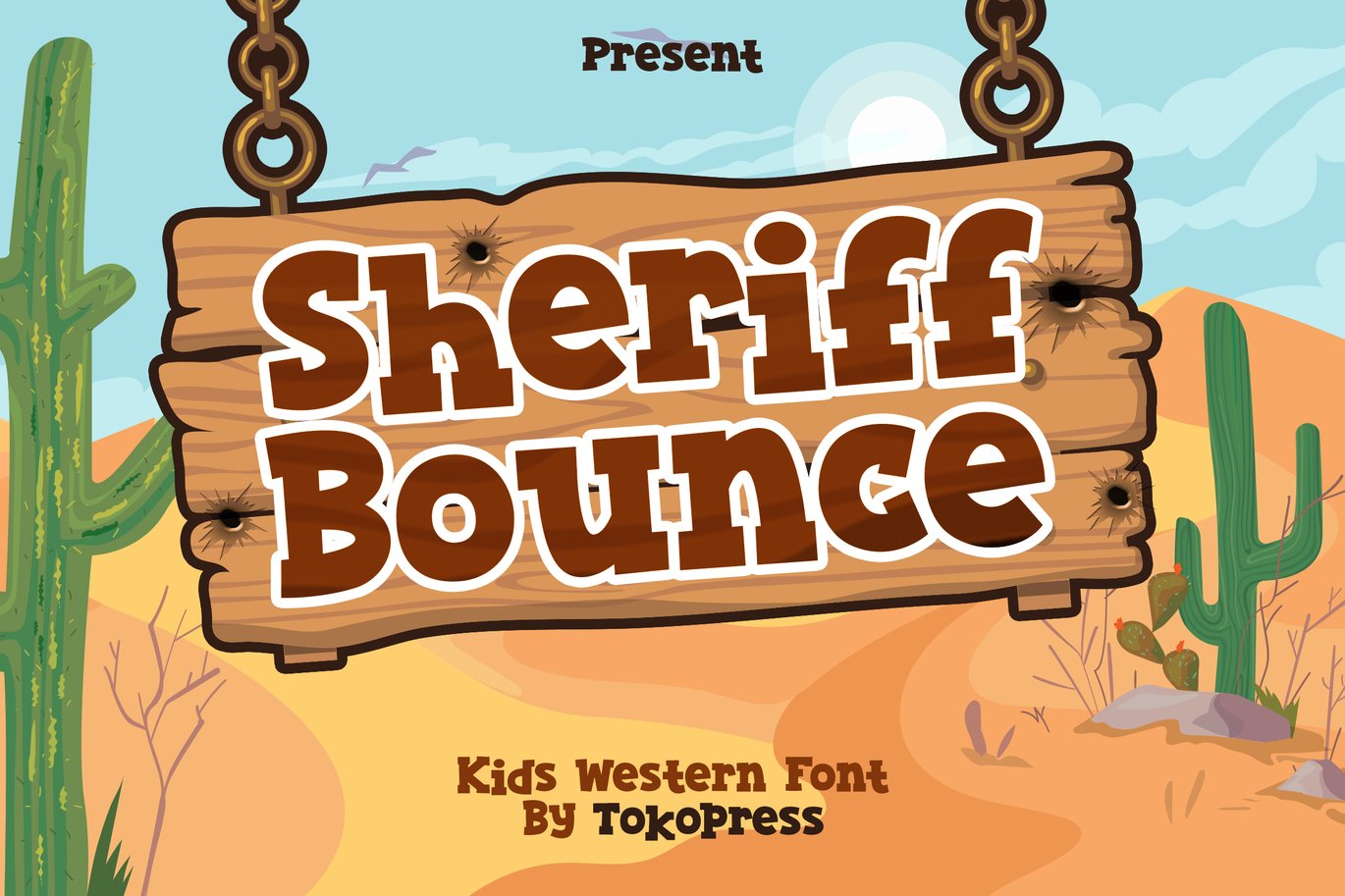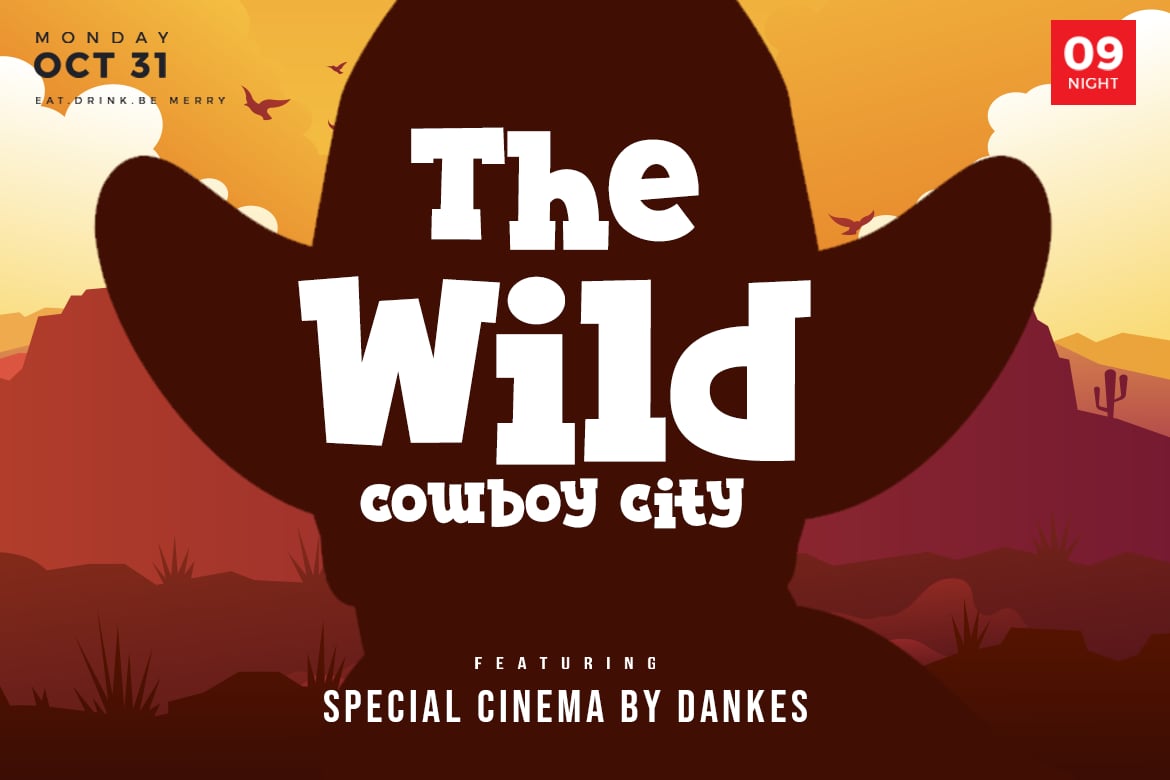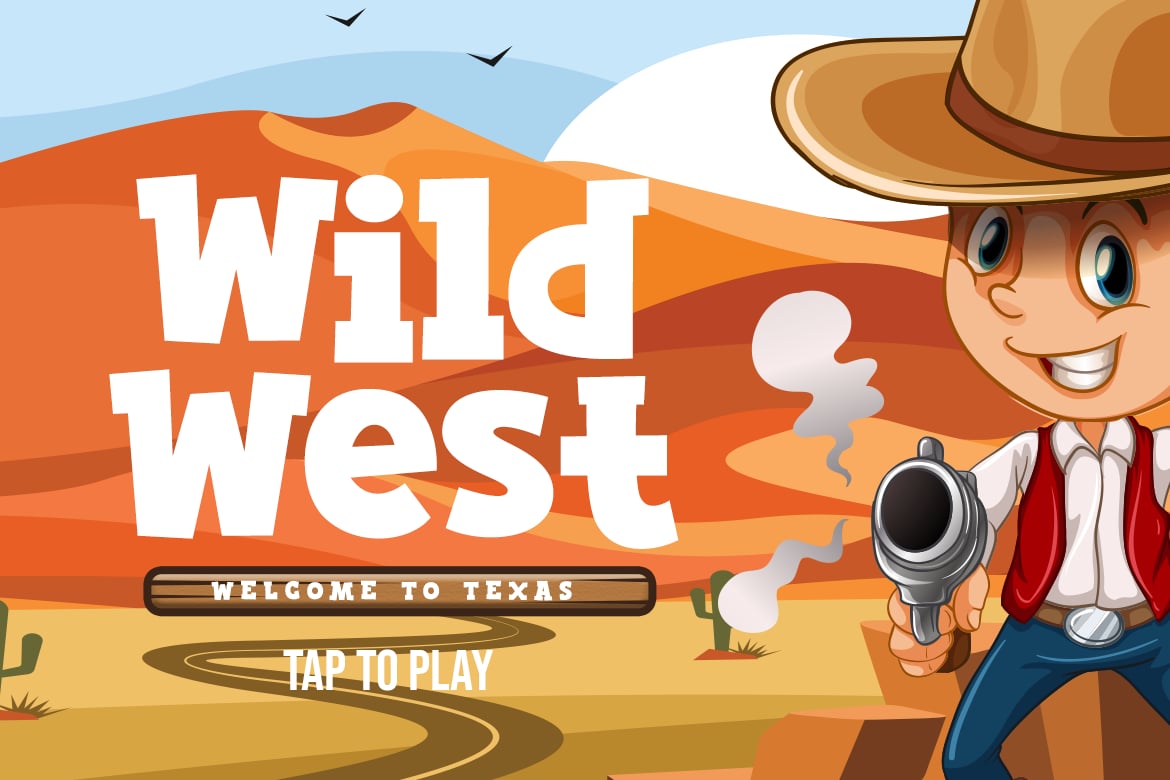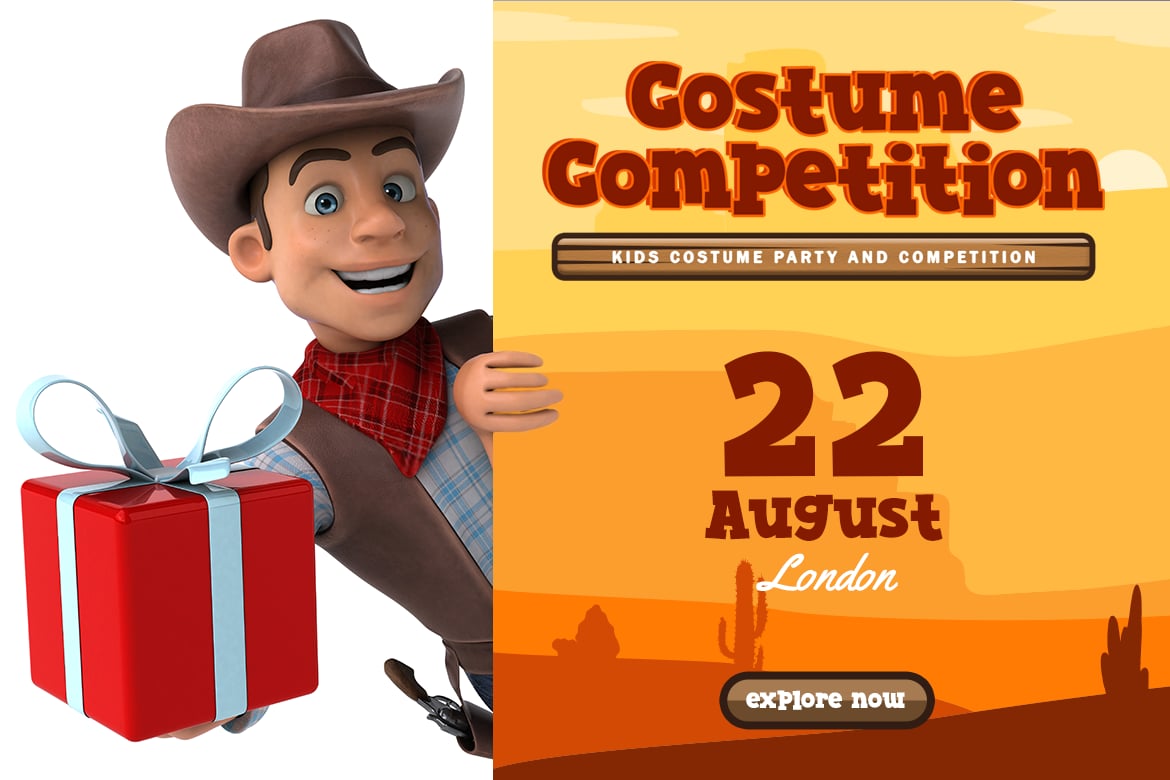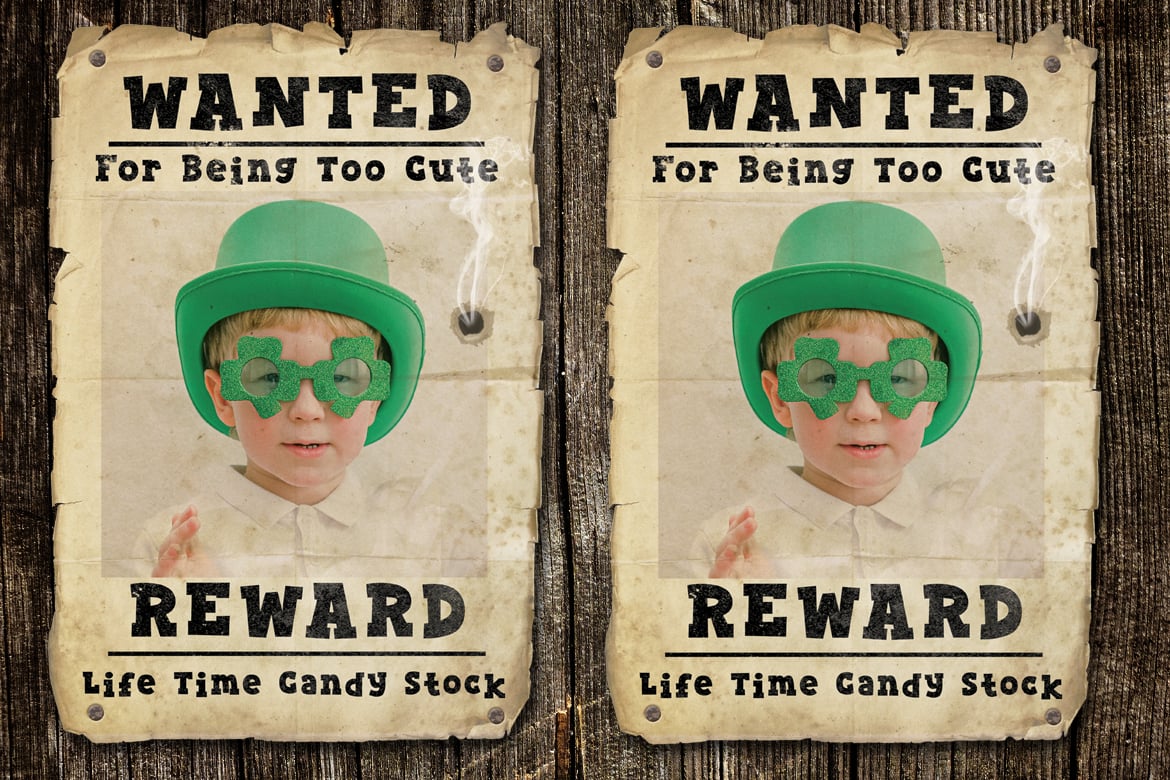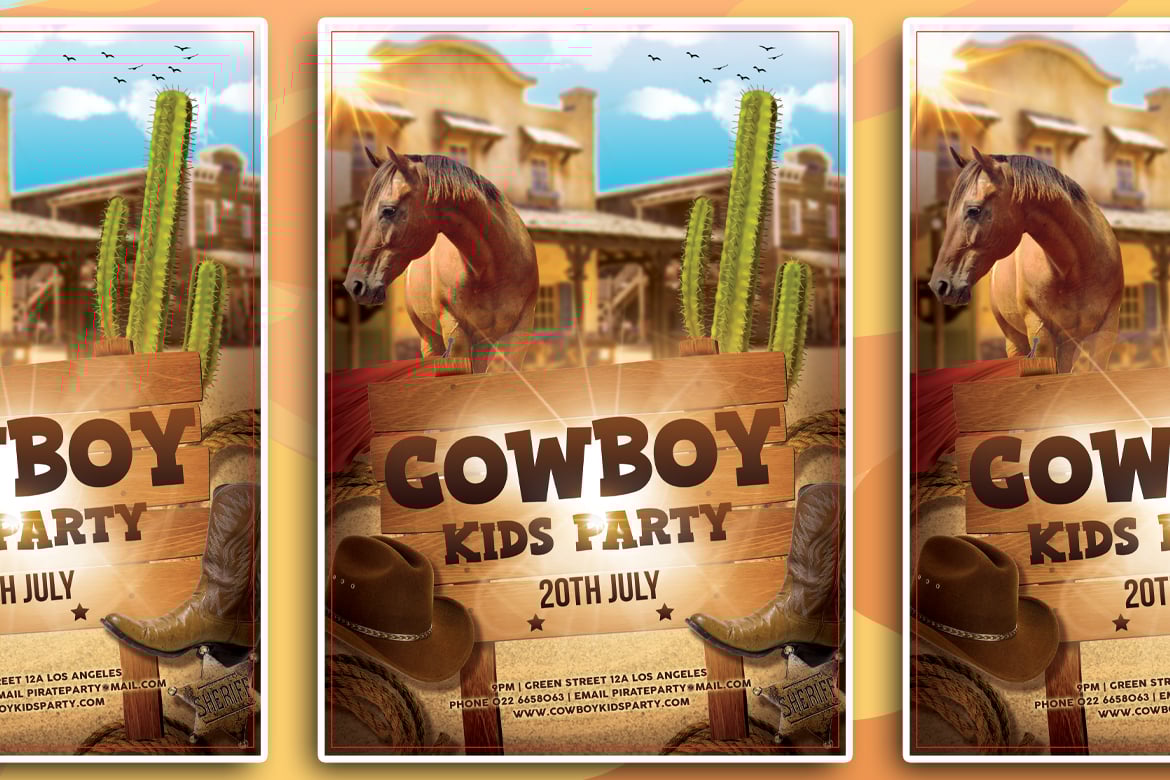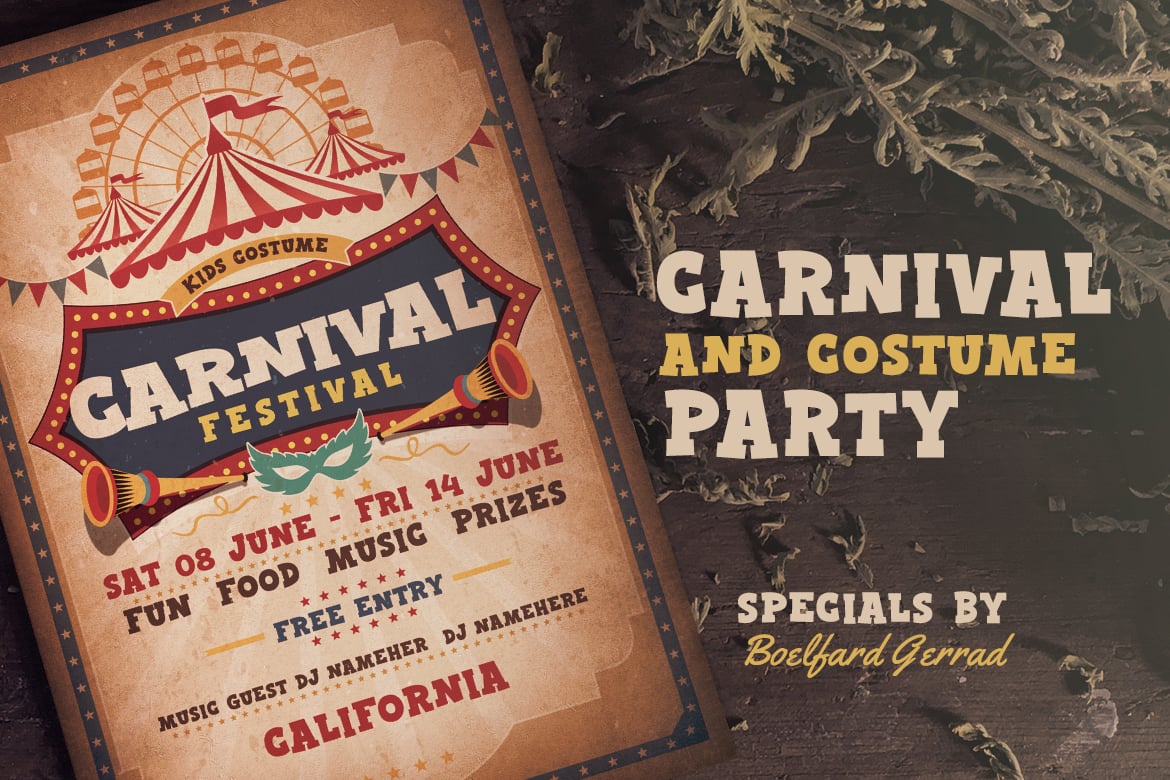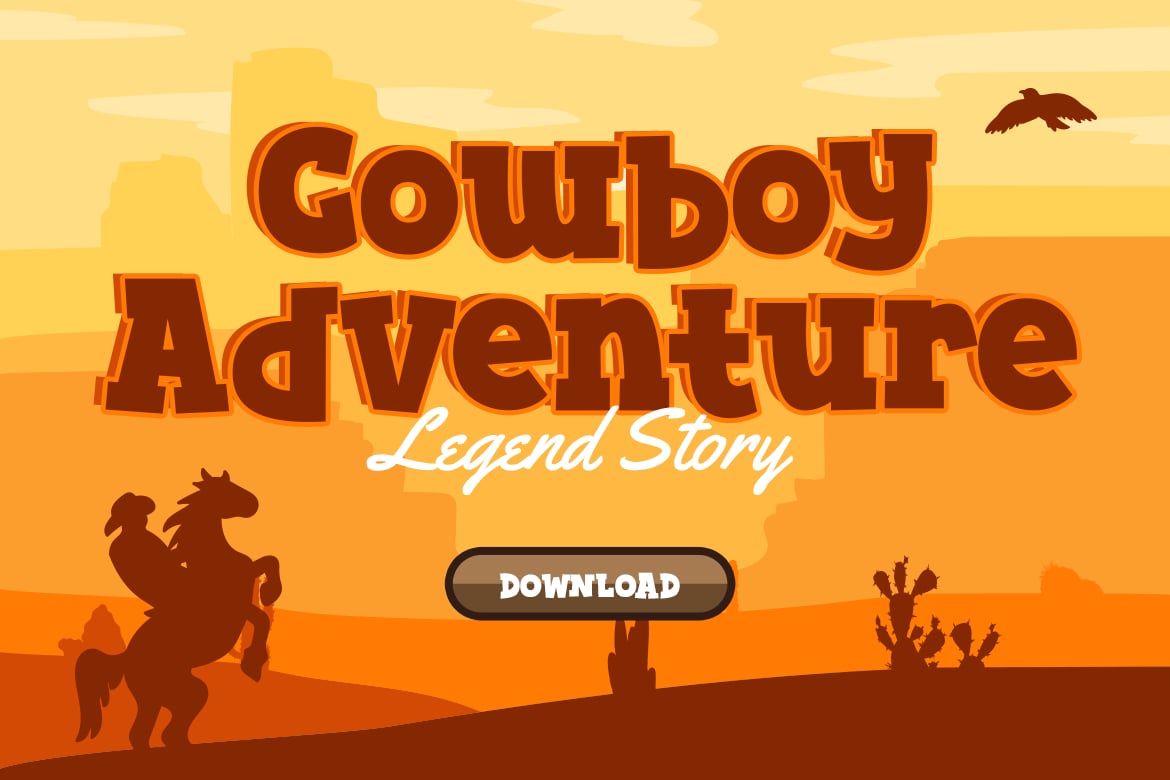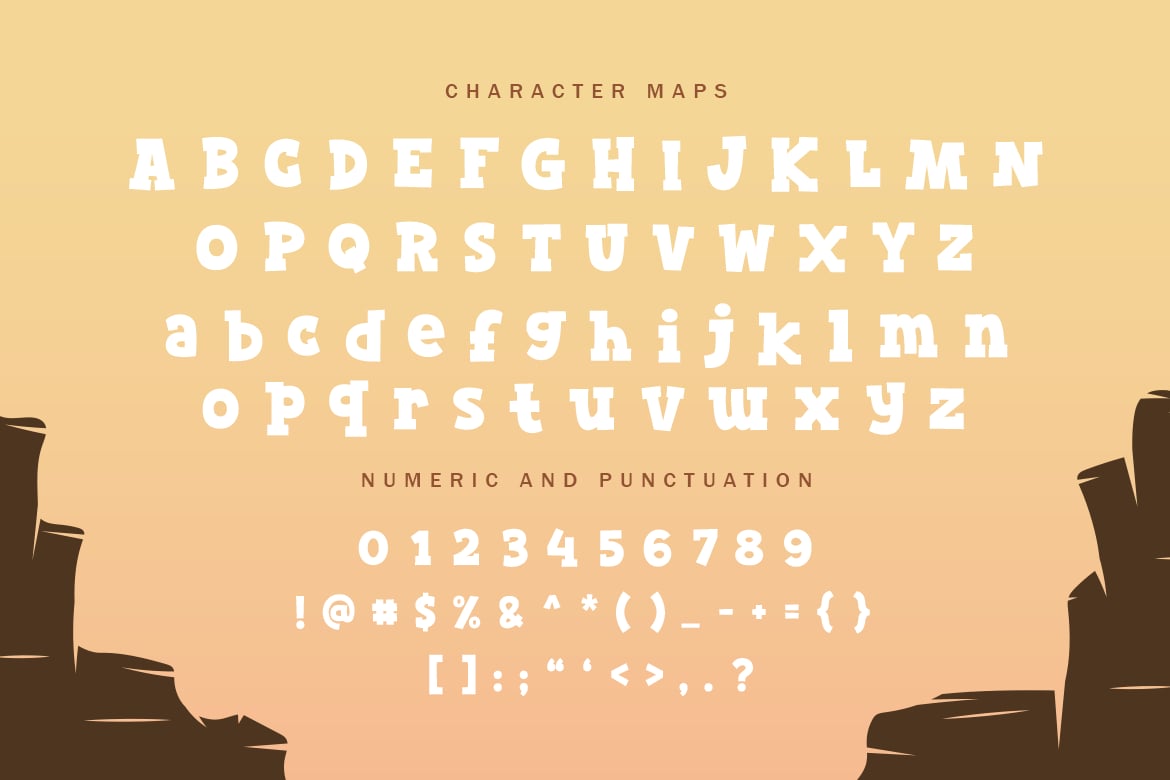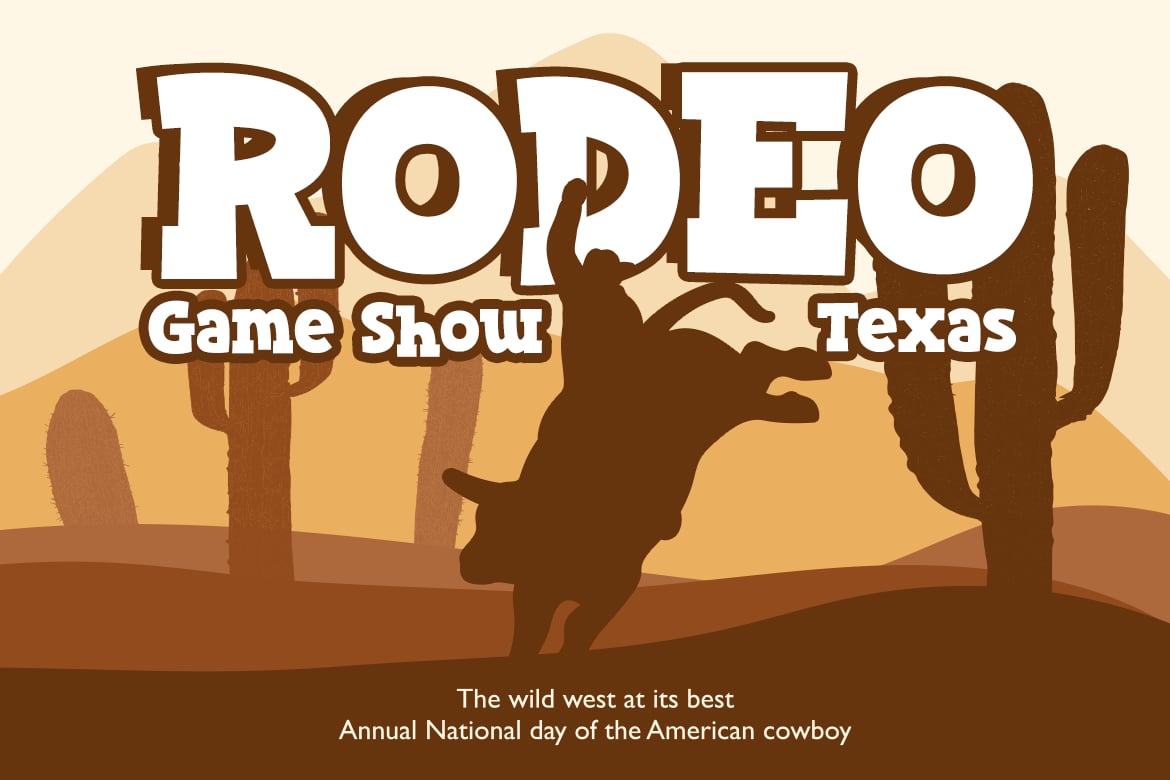
Sheriff Bounce – kids western font
It is western, it is bouncy baseline, it is Sheriff Bounce, your new favourite western kids font in town.
Suit perfectly for kids market, online games, stationary, t-shirt and school supplies font, poster, movie title, youtube covers, youtube thumbnails, social media page covers and so on…